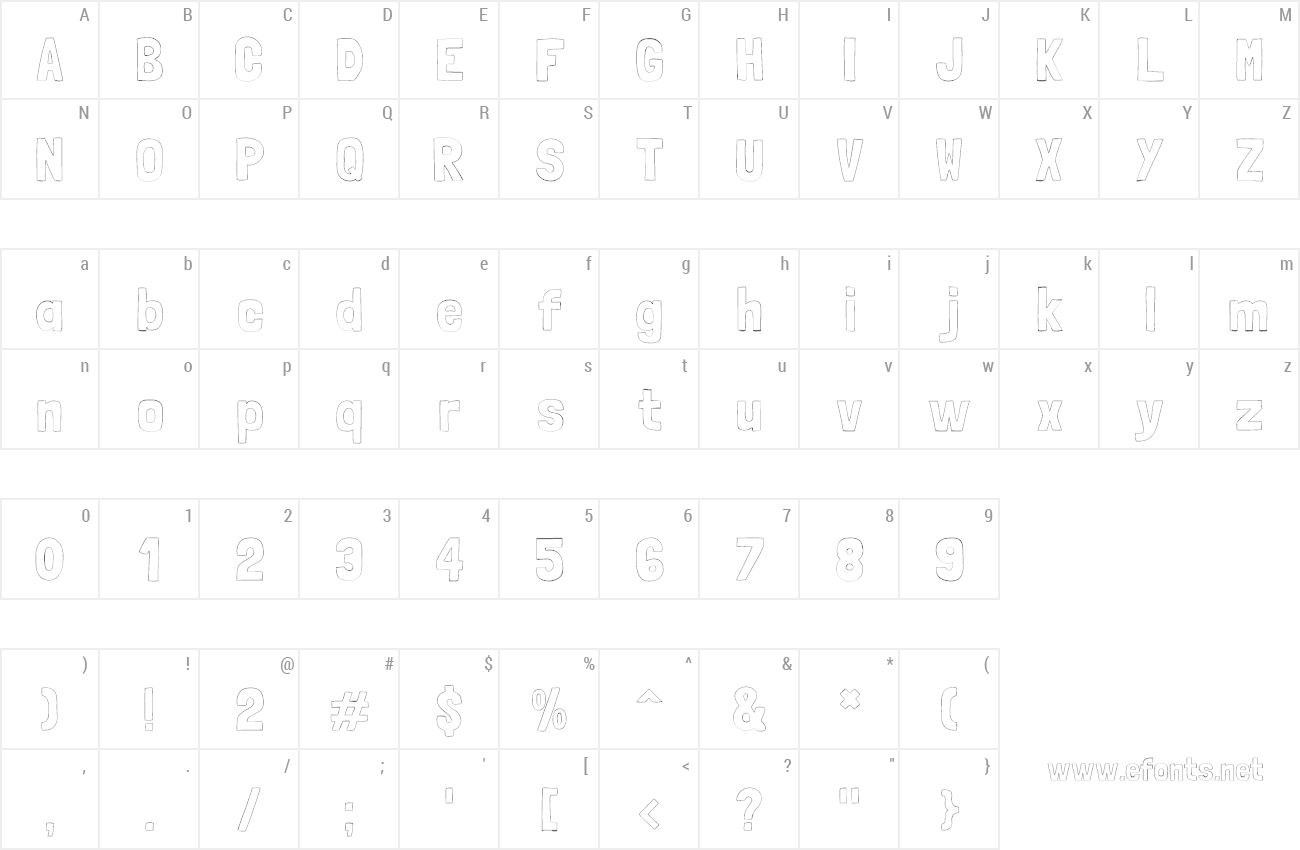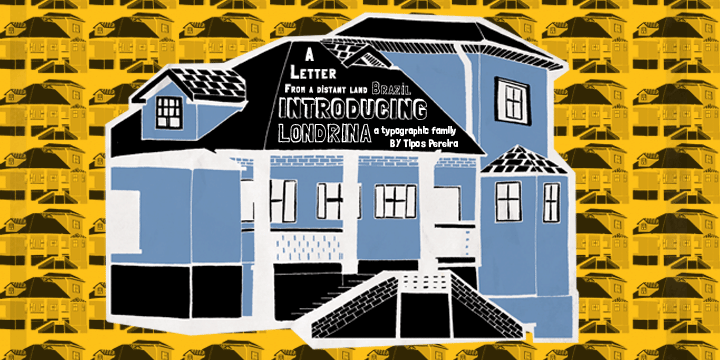
| Font name: | Londrina |
| Author: | Marcelo Magalhães Pereira |
| Note by Marcelo Magalhães Pereira | |
This typeface was called Folk, has now been updated with the characters in lowercase and has a new name, Londrina. The Londrina family is composed by 4 typefaces: Solid, Shadow, Outline and Sketches. The idea is to combine the main typeface Solid with the others, experiencing different outlines. |